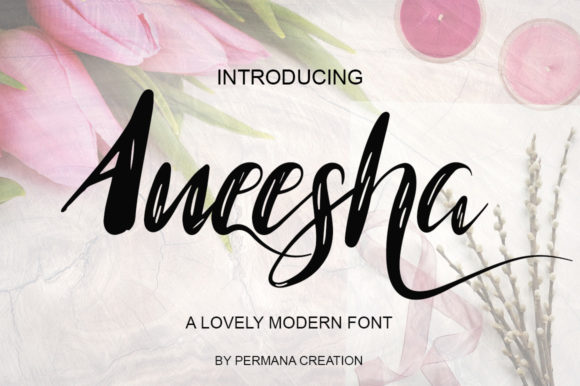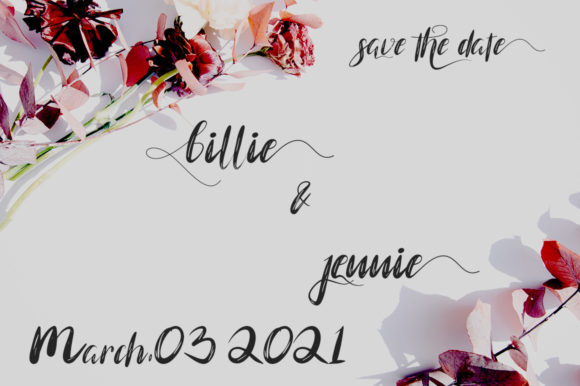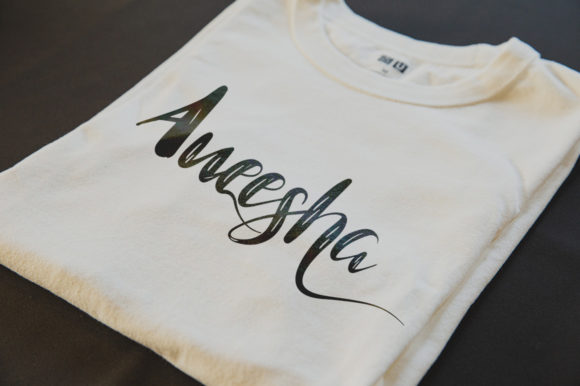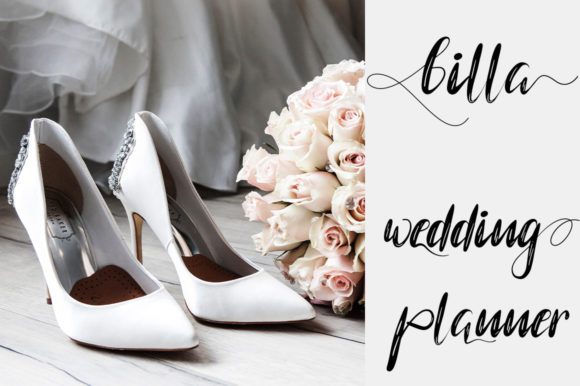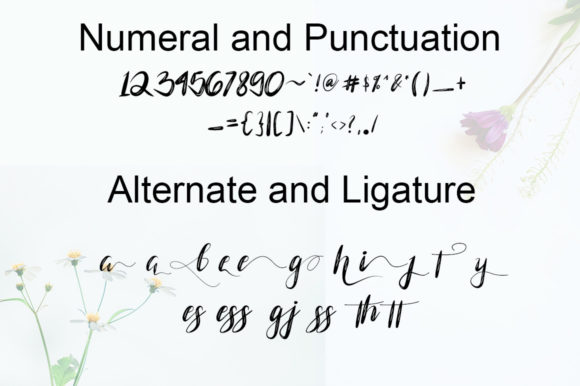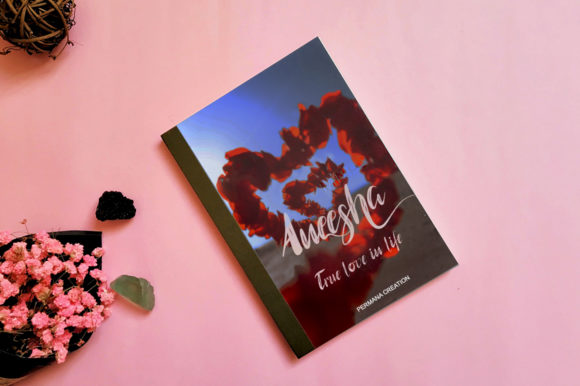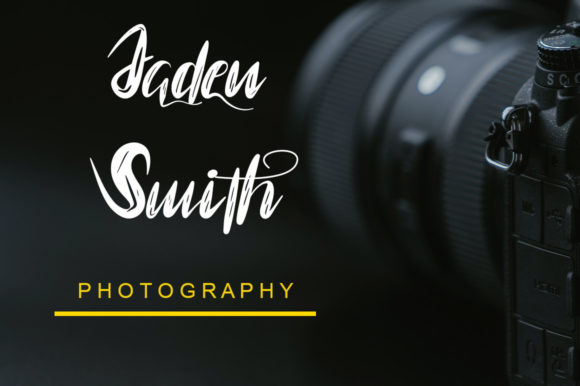
Aneesha Font: The Perfect Blend of Art and Beauty for Your Creative Projects
In the world of design, fonts play a crucial role in conveying the message and aesthetic of a brand or product. With thousands of fonts available, it can be overwhelming to choose the right one that stands out from the crowd. However, if you’re looking for a font that combines art and beauty, look no further than Aneesha Font. In this article, we’ll explore the features and benefits of Aneesha Font, and why it’s an excellent choice for designers and crafters.
The Art of Aneesha Font
Aneesha Font is the result of a meticulous combination of art and beauty, making it an ideal choice for product advertisements, invitation cards, brand logos, and any other promotional materials. Its unique design elements make it perfect for creating visually appealing and engaging content that captures the attention of your audience. Whether you’re a designer, crafter, or business owner, Aneesha Font is sure to elevate your creative projects to the next level.
One of the standout features of Aneesha Font is its PUA (Private Use Area) encoding. This means that you can access all the glyphs and swashes with ease, giving you more creative control over your designs. With PUA encoding, you can effortlessly navigate through the font’s various characters, ligatures, and ornaments, making it simple to create stunning and intricate designs.
Aneesha Font is incredibly versatile and can be used for a wide range of design applications. Here are some examples:
- Product Advertisements: Create eye-catching ads that showcase your products in style.
- Invitation Cards: Design beautiful and elegant invitation cards for weddings, parties, and other events.
- Brand Logos: Establish a strong brand identity with a custom logo that incorporates Aneesha Font.
- Promotional Materials: Elevate your brochures, flyers, and posters with the unique and captivating design of Aneesha Font.
Why Choose Aneesha Font?
With so many fonts available, why should you choose Aneesha Font? Here are some compelling reasons:
- Unique Design: Aneesha Font boasts a distinctive design that sets it apart from other fonts.
- Ease of Use: With PUA encoding, you can easily access all the glyphs and swashes, making it simple to create stunning designs.
- Versatility: Aneesha Font can be used for a wide range of design applications, making it a valuable addition to your font library.
- High-Quality: Aneesha Font is crafted with attention to detail, ensuring that it meets the highest standards of quality.
Tips for Using Aneesha Font
To get the most out of Aneesha Font, here are some valuable tips:
- Experiment with Different Sizes: Aneesha Font looks great in various sizes, so don’t be afraid to experiment and find the perfect size for your design.
- Pair it with Other Fonts: Combine Aneesha Font with other fonts to create a unique and visually appealing design.
- Use it for Headlines and Titles: Aneesha Font is perfect for headlines and titles, making it an excellent choice for creating attention-grabbing designs.
In conclusion, Aneesha Font is an exceptional choice for designers and crafters looking for a font that combines art and beauty. With its PUA encoding, unique design elements, and versatility, Aneesha Font is perfect for a wide range of design applications. Whether you’re creating product advertisements, invitation cards, or brand logos, Aneesha Font is sure to elevate your creative projects to new heights. So why wait? Get Aneesha Font today and experience the power of art and beauty in your designs!